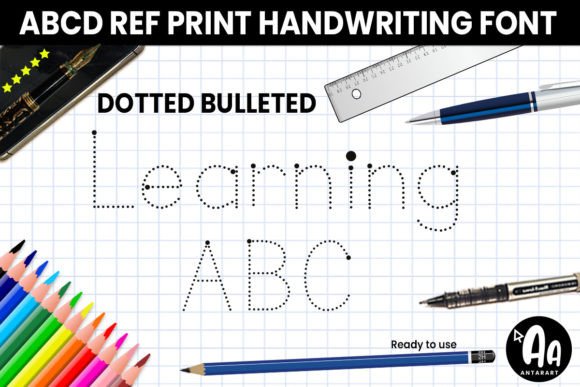
**Welcome to the World of Abcd Ref Dotted Bulleted: The Perfect Font for Making a Statement!**
Introducing the breathtaking Abcd Ref Dotted Bulleted font, a masterpiece crafted to bring elegance and sophistication to your digital creations. This display font family is not merely a collection of characters; it's an artistic expression that will transform your designs into visually captivating experiences.
**A Timeless Classic Reborn**
Based on the renowned D’Nealian Method US school, Abcd Ref Dotted Bulleted revives the charm of traditional penmanship with a modern twist. Its dotted and bulleted design adds a touch of playfulness and creativity, making it perfect for a wide range of projects, from official letters to playful invitations.
**Ignite Your Creativity**
With Abcd Ref Dotted Bulleted, the possibilities are endless. Create stunning worksheets that engage and inspire young learners. Compose heartfelt letters that carry the weight of your emotions. Design invitations that spark curiosity and excitement. Unleash your imagination and let this font guide you to new heights of creativity.
**The Perfect Font for Every Occasion**
Whether you're a seasoned designer or just starting out, Abcd Ref Dotted Bulleted is the perfect font to add to your toolkit. Its versatility knows no bounds, effortlessly adapting to any project you throw its way. From formal documents to casual messages, this font will elevate your words and make them shine.